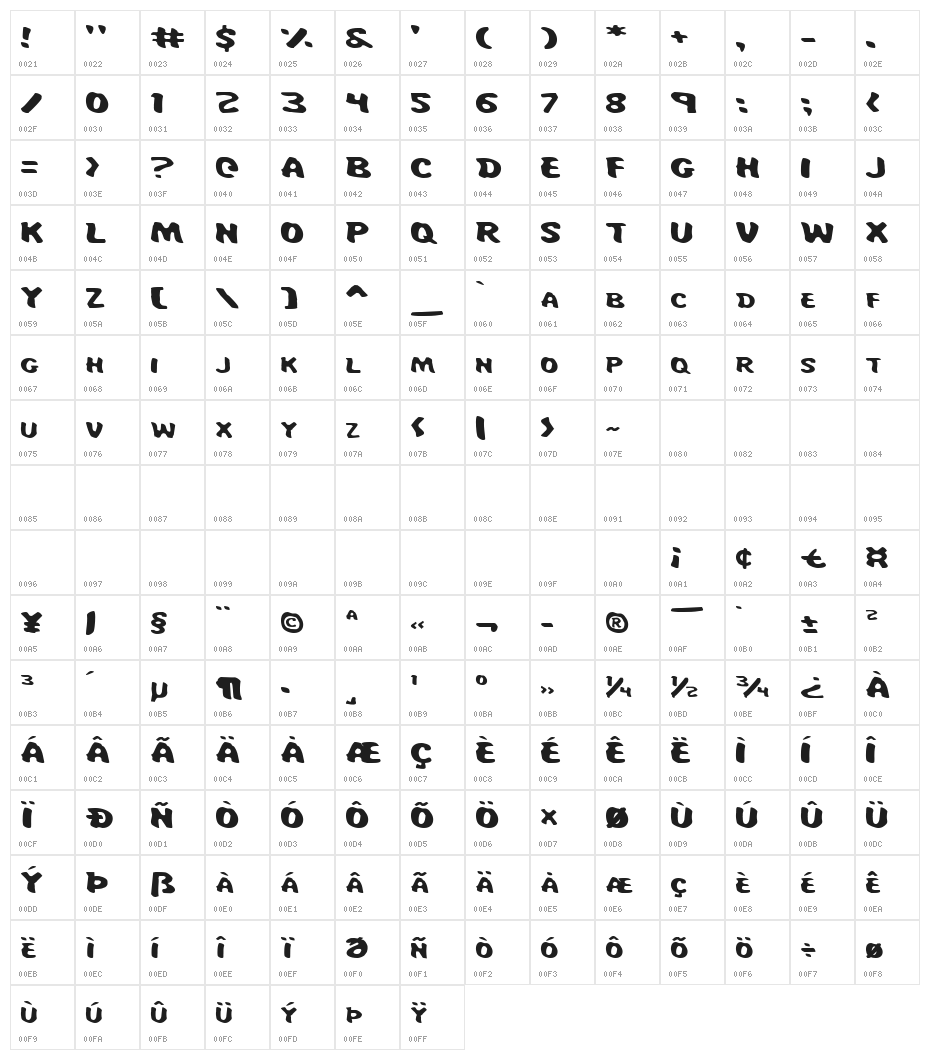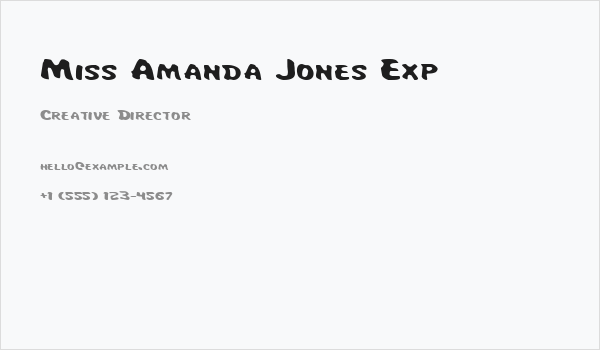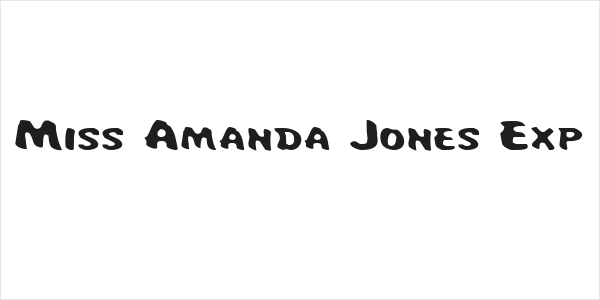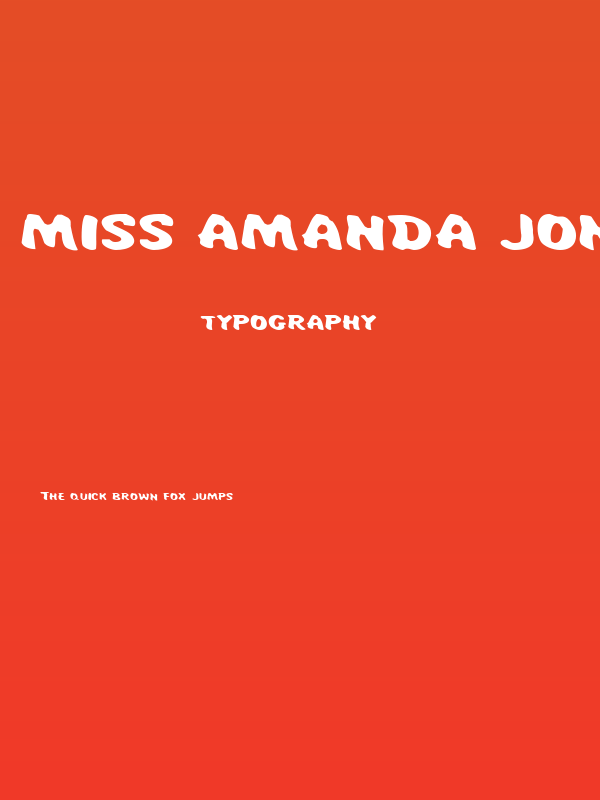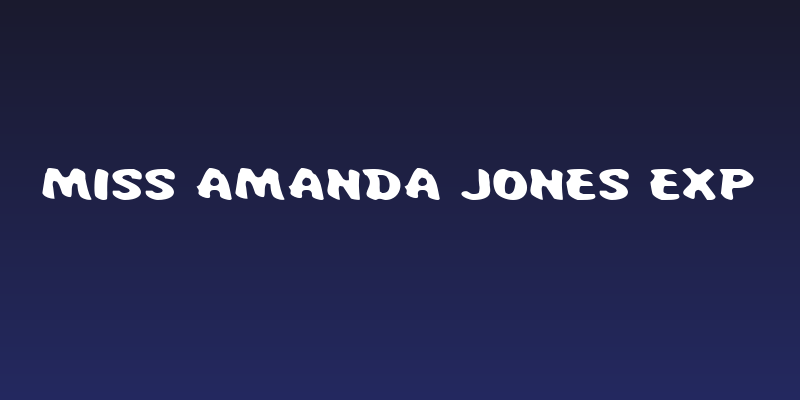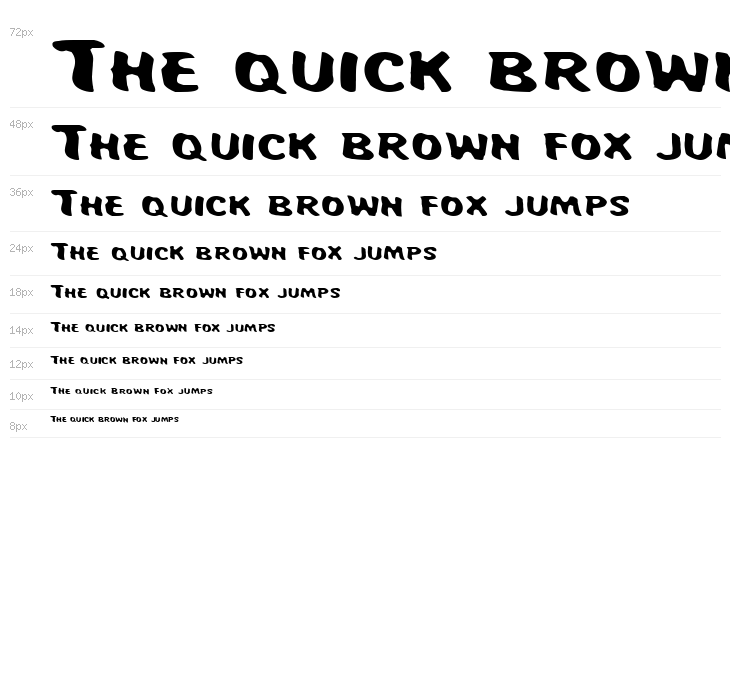
Miss Amanda Jones Exp Font
Miss Amanda Jones Exp Description
This font features a bold and playful style with a hand-drawn appearance. The characters are rounded and slightly irregular, giving them a whimsical and informal look. The strokes are thick and consistent, contributing to a strong visual impact. The font maintains a uniform weight throughout, with no significant variation in stroke thickness. The character spacing is relatively tight, which enhances its boldness and makes it suitable for eye-catching designs. The overall style is decorative and modern, making it ideal for projects that require a fun and lively aesthetic.
| Proposed Projects | Ideal for children's books, playful branding, posters, and greeting cards. |